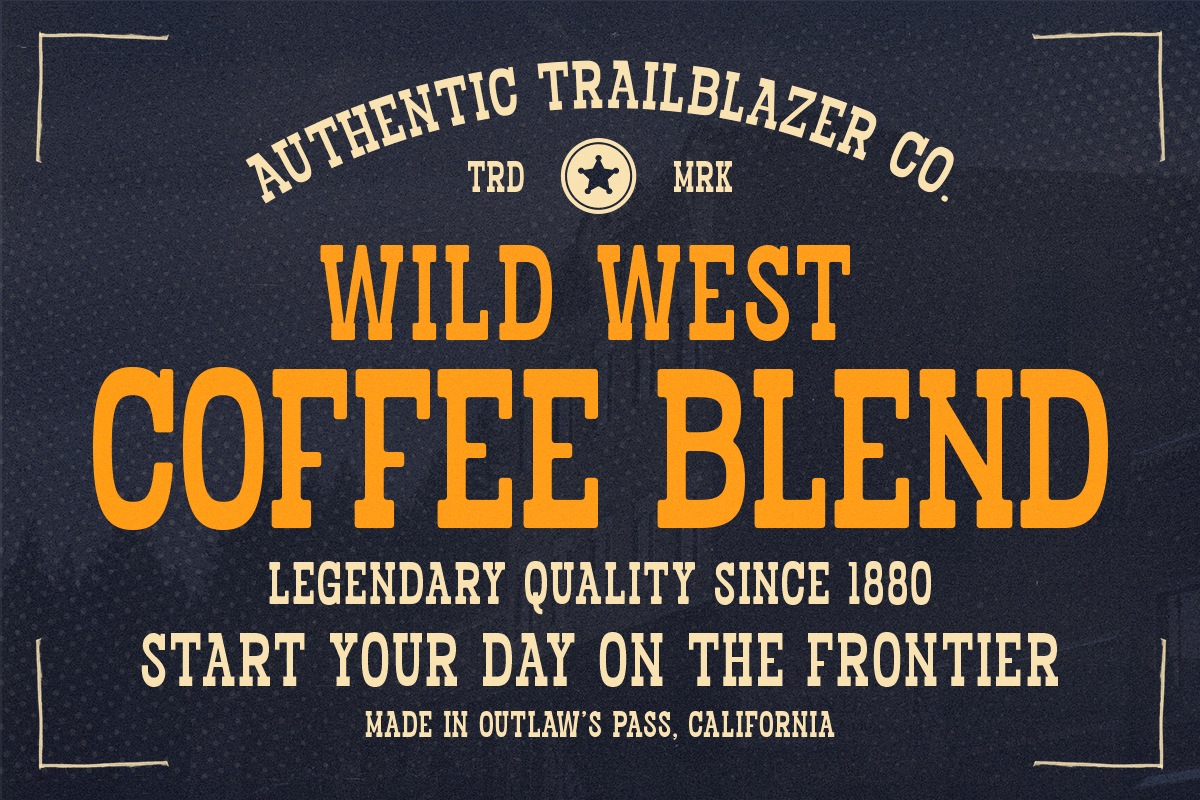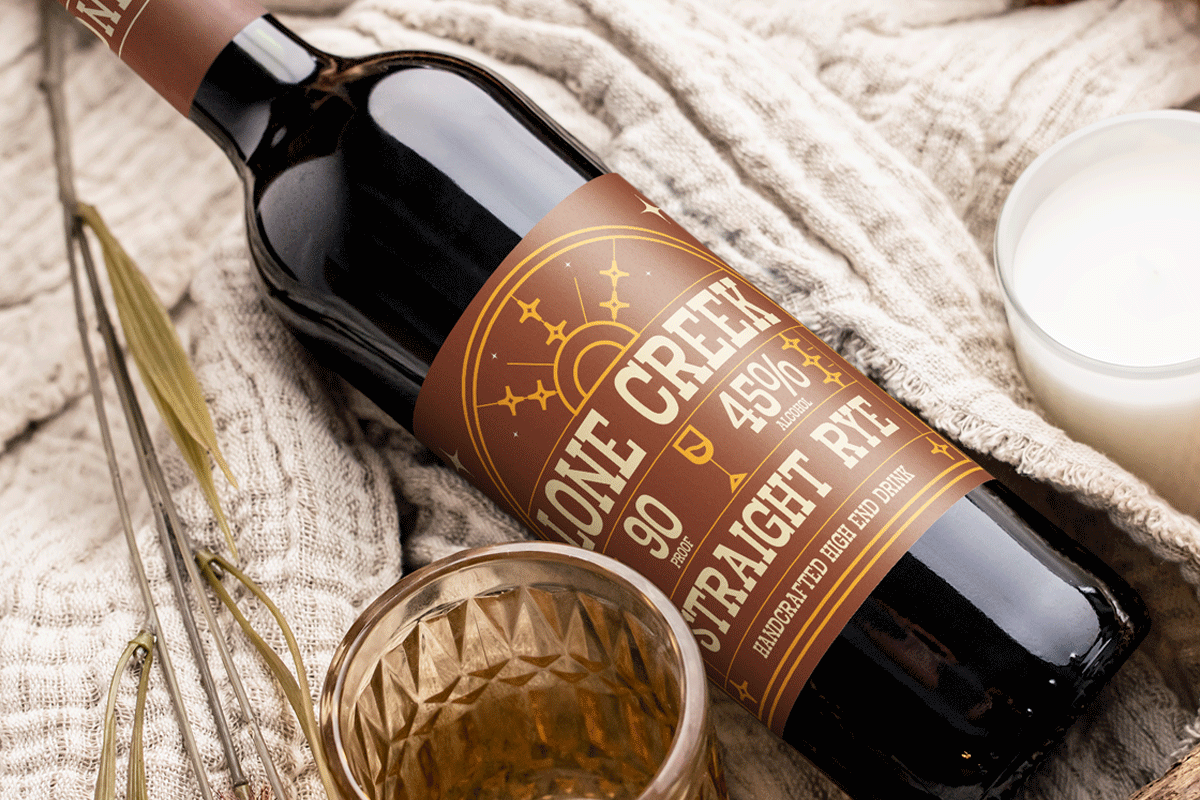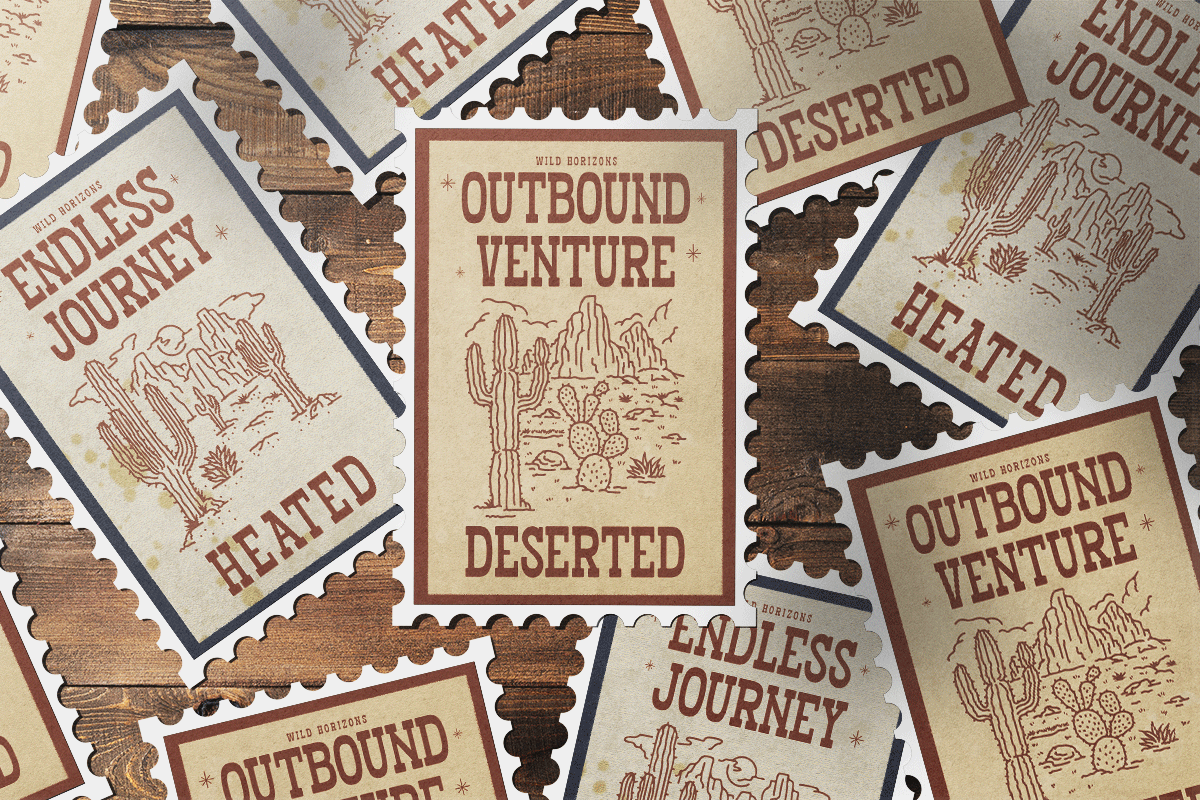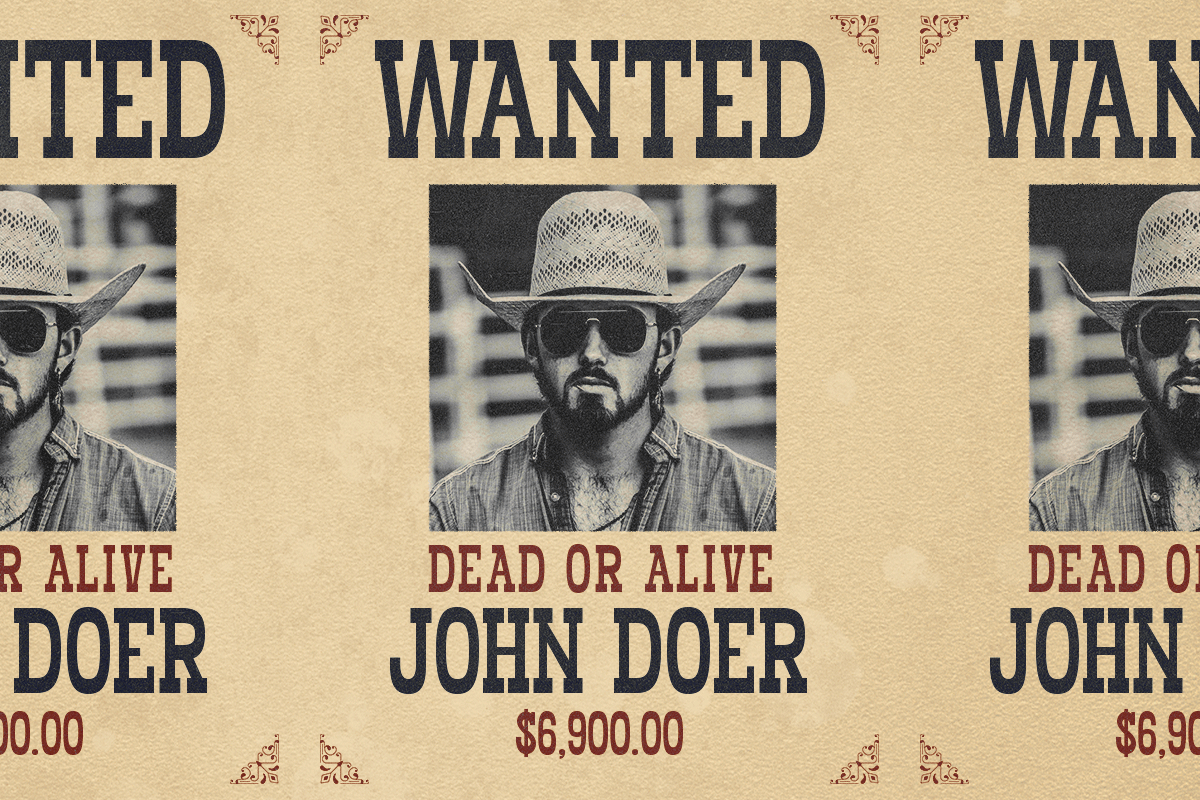
Oldridge - Western Vintage Display Font
Oldridge is a bold western display font designed to bring frontier spirit into modern branding. Strong slab forms and rustic handcrafted character make it perfect for logos, packaging, signage, and editorial headlines seeking an authentic Wild West aesthetic.
• Perfect for branding & display use
Best for : Alcohol/beverage branding, outdoor gear, apparel labels, rodeo posters, restaurant signage, vintage advertising.